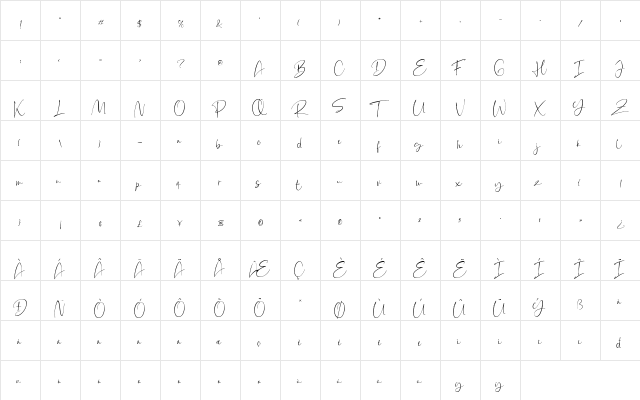
Barcelona Historia Regular
| Foundry | Kotak Kuning Studio |
| Designer | M Arif Dwi Prasetyo & Eko Nurcahyo |
Design Context for Barcelona Historia Typeface
Barcelona Historia is a composed and adaptable typeface that performs quietly and consistently across a wide range of design contexts.